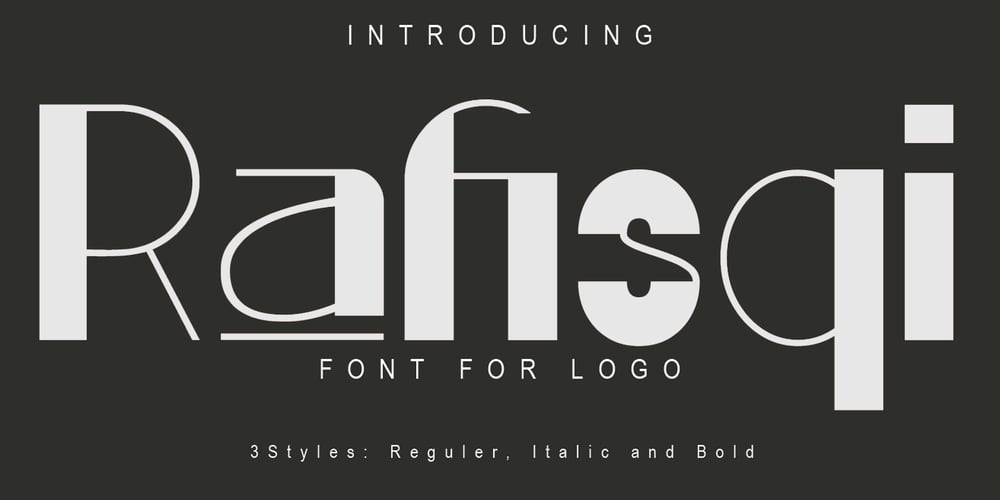
Rafisqi Font Family was designed by Amrullah and published by Suamzu Art. Rafisqi contains 3 styles and family package options. Rafisqi is a new font for a minimalist logo design. This font is suitable for creating word markers, titles, taglines. Use alternatives to set separate fonts in your text, unite thick and thin lines with your design techniques, so as to produce a very unique shape. Rafisqi font is perfect for designing company logos, online game logo, magazine covers, biographical book covers, business cards and all your design work, of course. to be more attractive in appearance, it helps you combine the Rafisqi font with other fonts so that your design looks more attractiveRafisqi is the display font, so it can not be the best choice for continuous text.Font contains:3 letter styles3 choices of basic replacement letters3 number choicesLigaturepunctuationAll character options are included in one font. You can use ligature in most major image editors, just look for the glyhps menu there. For example, in Adobe Illustrator you must select the Window Type glyhps menu item.